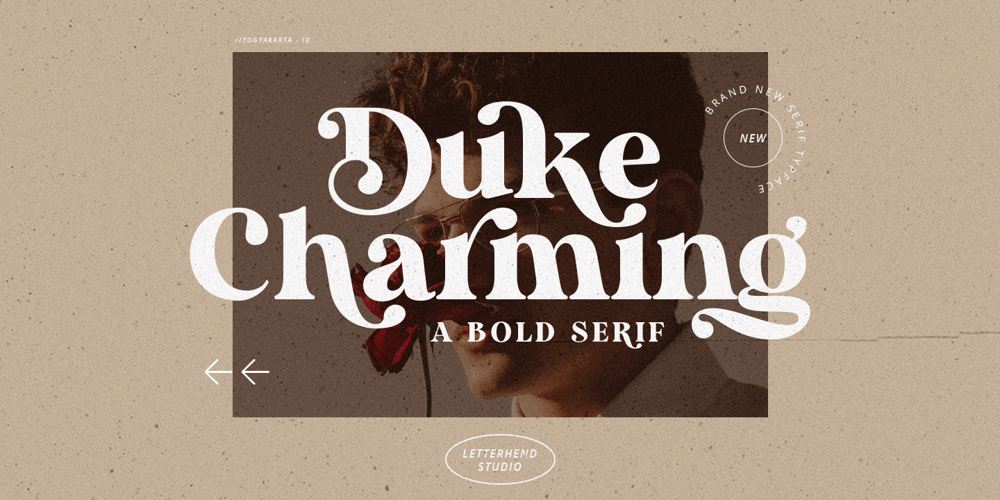
Duke Charming Font Family was designed by Hendry Juanda and published by Letterhend. Duke Charming contains 1 styles and family package options. Introducing, Duke Charming – A Modern Seri bold serif font. This font is one of our best product ever, carefully made to make sure its quality. The stylistic alternates and ligatures make this font event more unique and stands from the crowd. This font perfectly made to be applied especially in logo, and the other various formal forms such as invitations, labels, logos, magazines, books, greeting / wedding cards, packaging, fashion, make up, stationery, novels, labels or any type of advertising purpose.Features : uppercase & lowercase numbers and punctuation multilingual alternates & ligatures PUA encoded We highly recommend using a program that supports OpenType features and Glyphs panels like many of Adobe apps and Corel Draw, so you can see and access all Glyph variations.